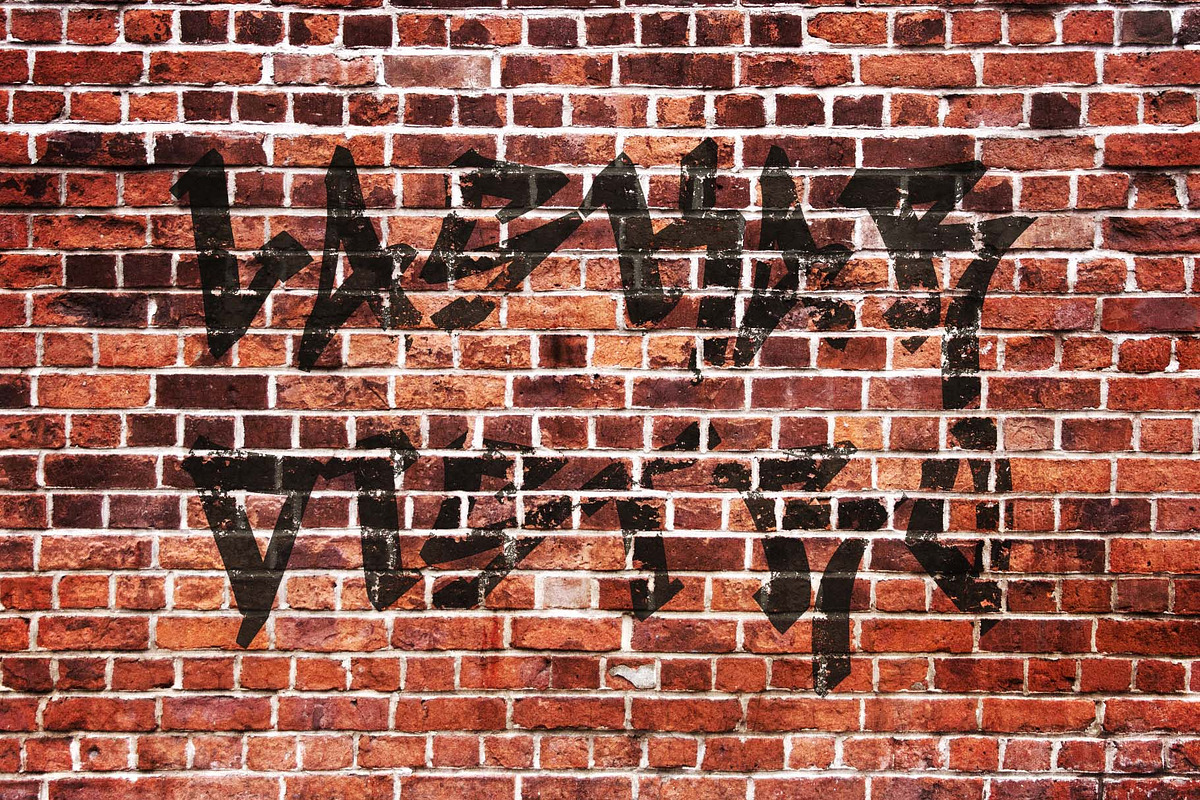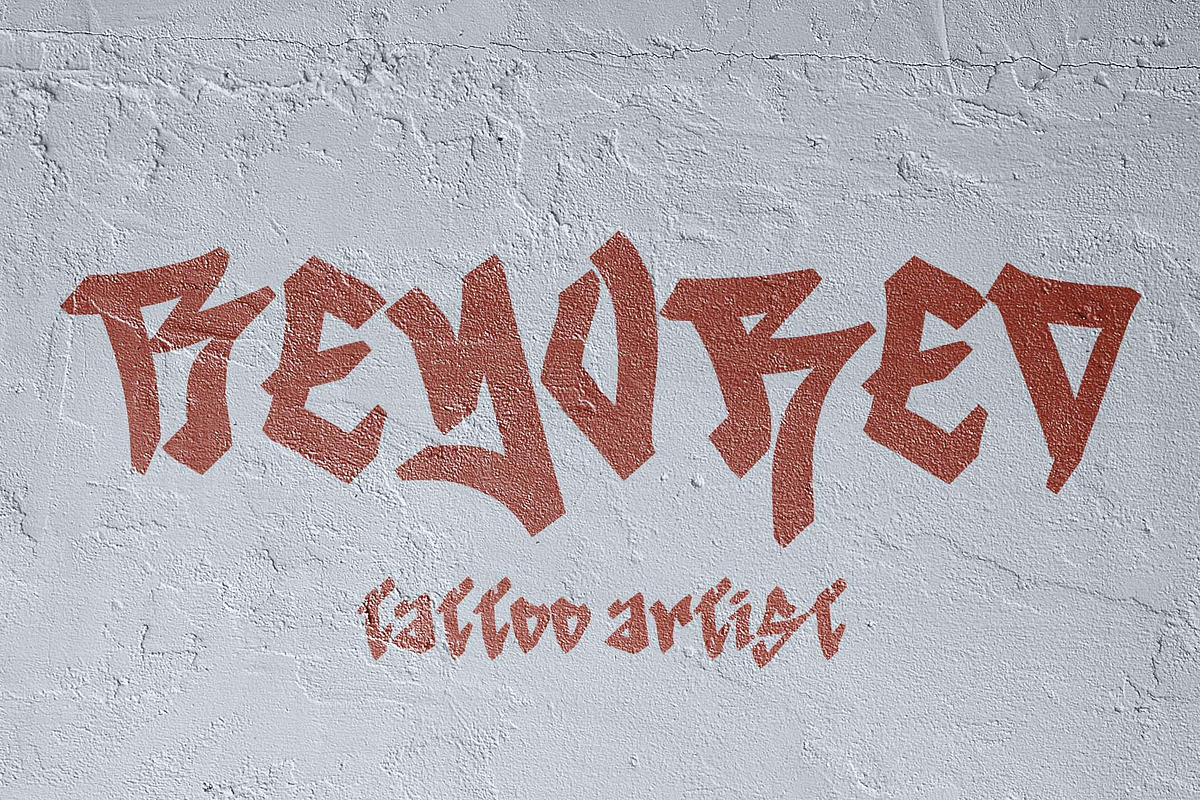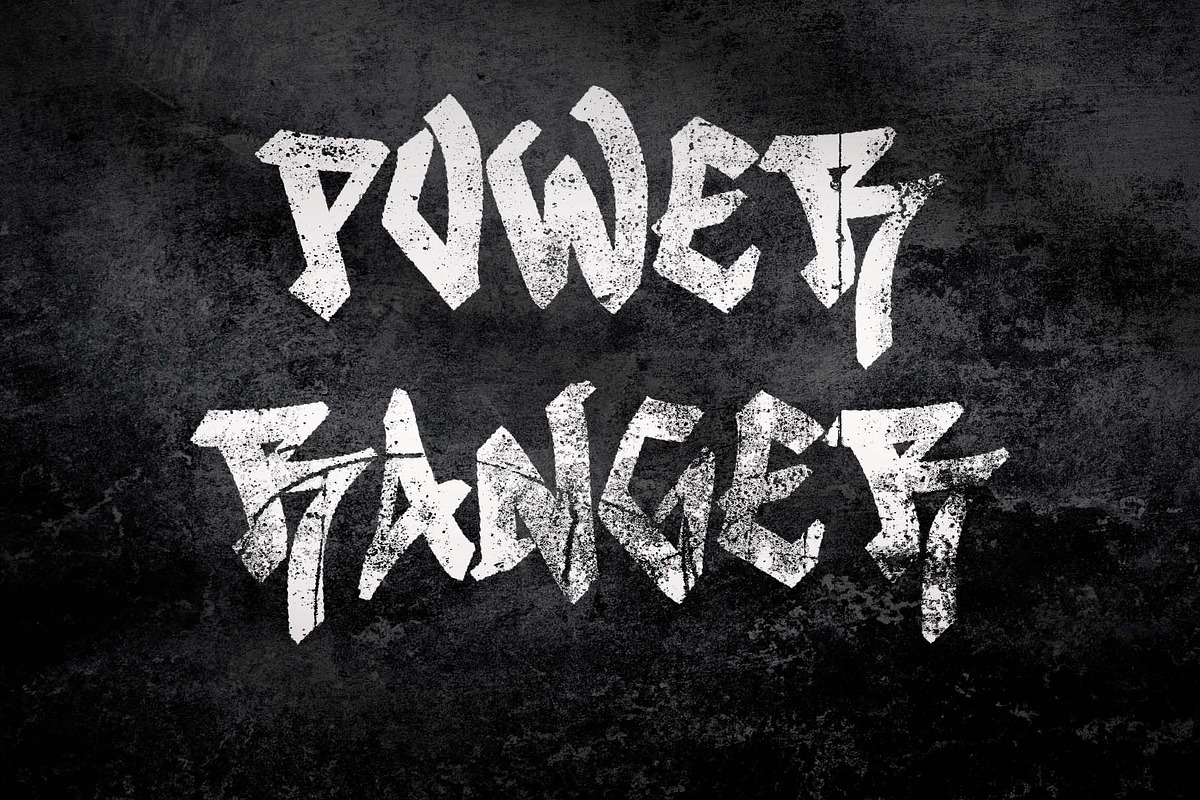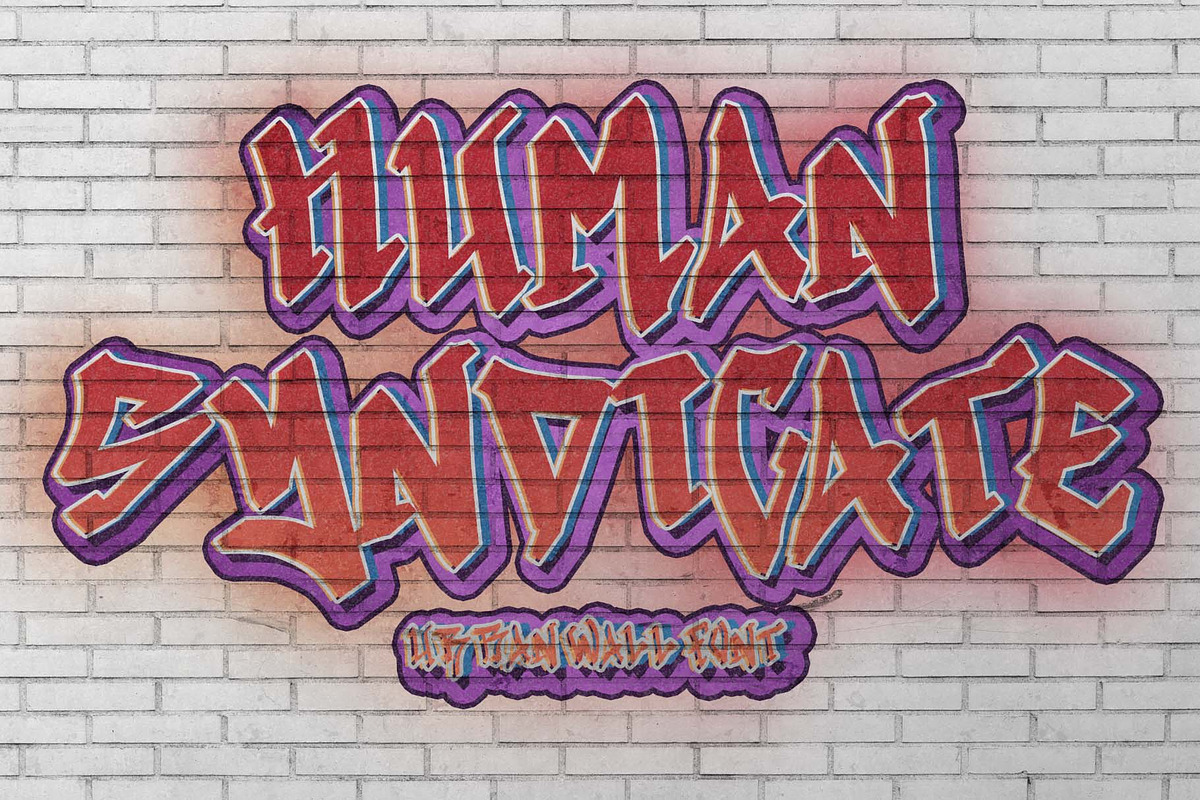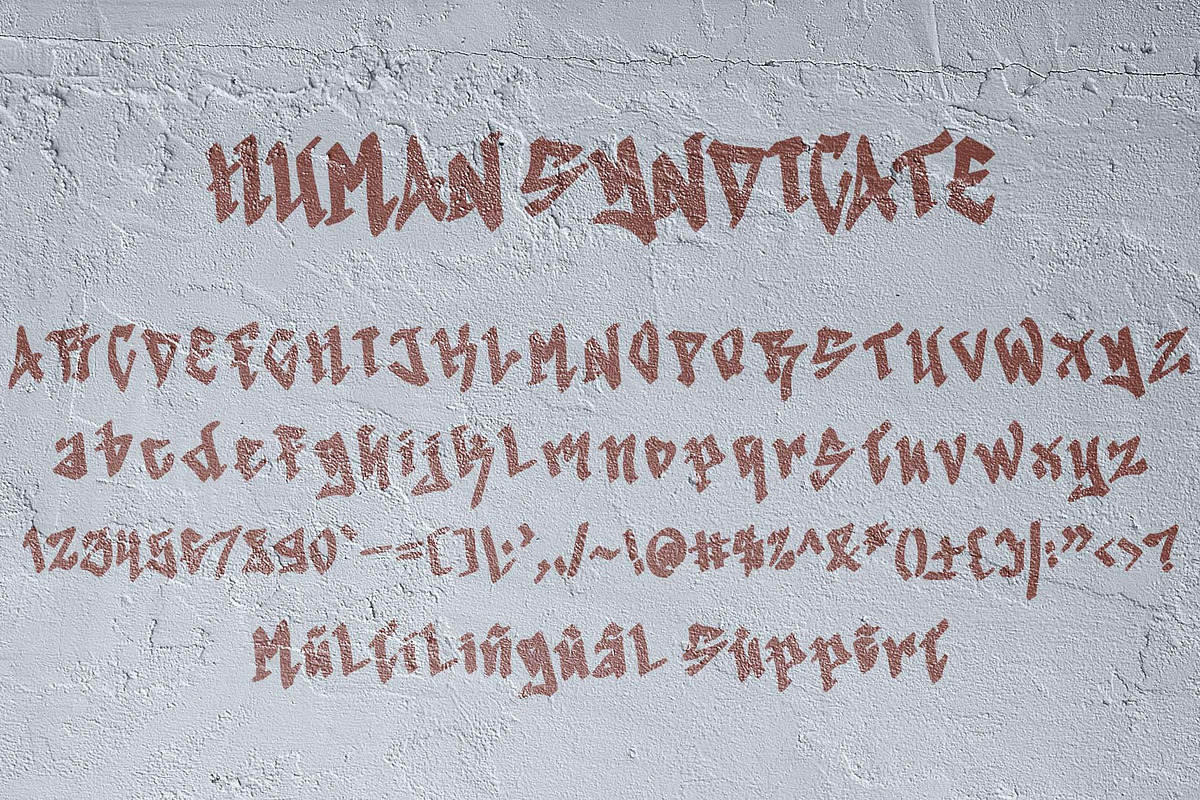
Human Syndicate
“Human Syndicate” is a unique and elegant graffiti font. This font is equipped with uppercase, lowercase, numerals, punctuation, and multilingual support. Very suitable for wall art, urban street art, logos, banners, branding, posters, stickers, Christmas, Halloween, comics, and others.